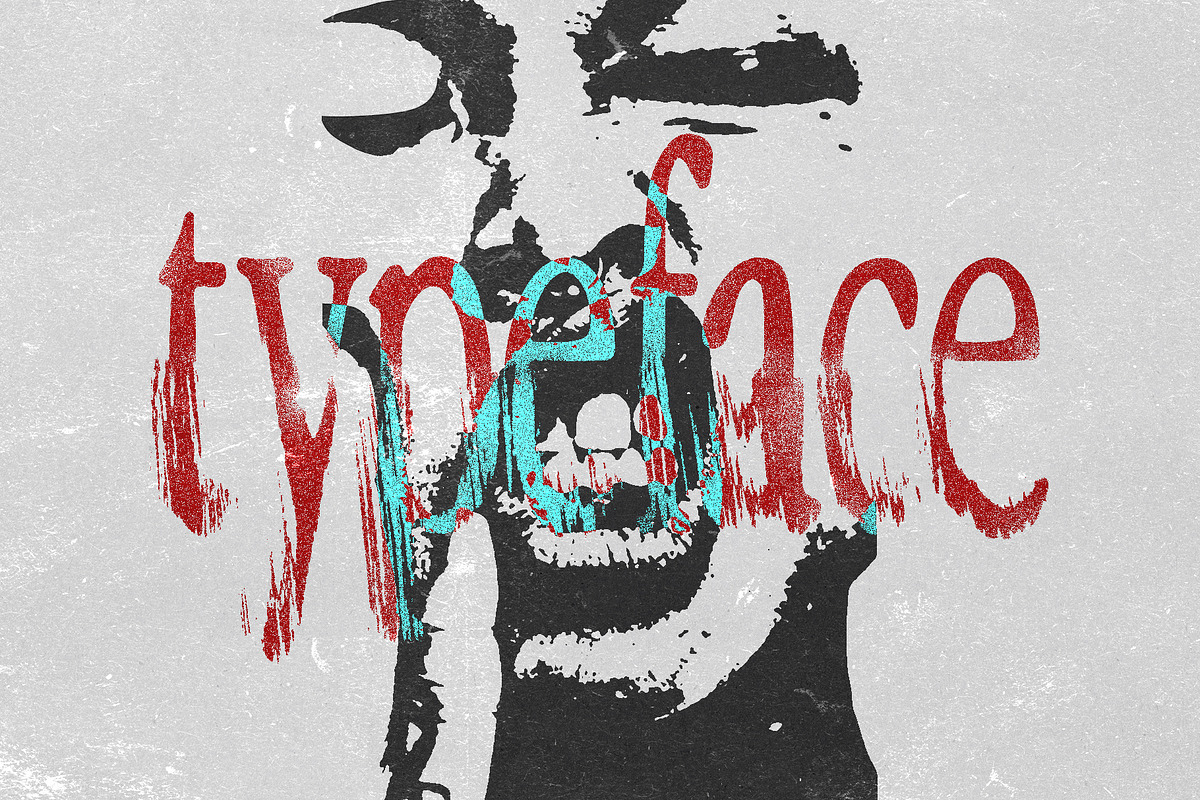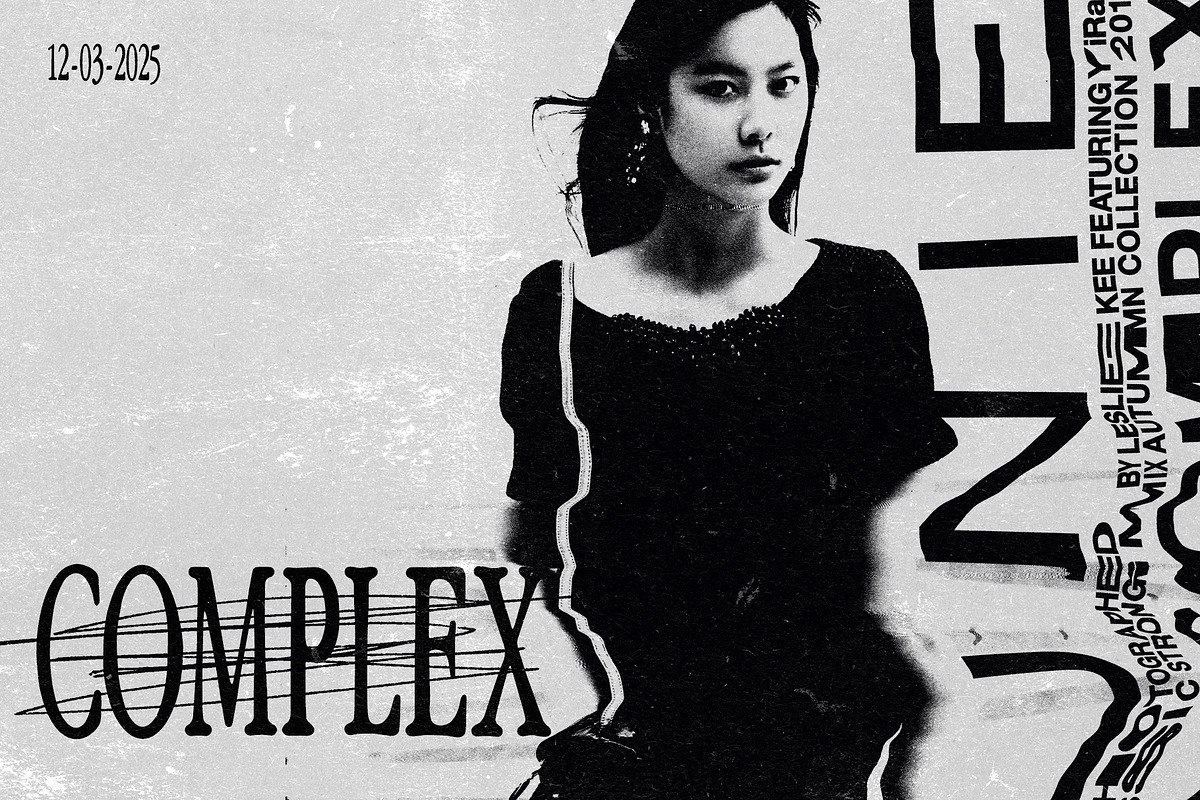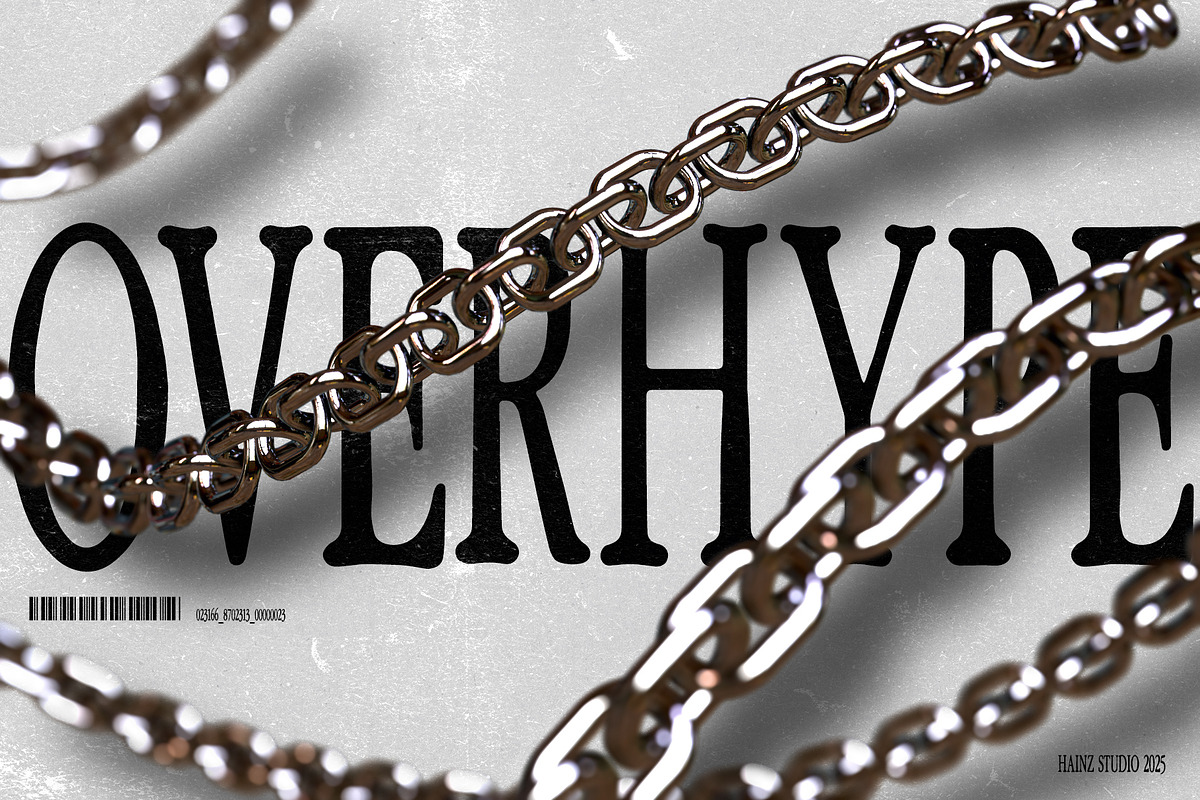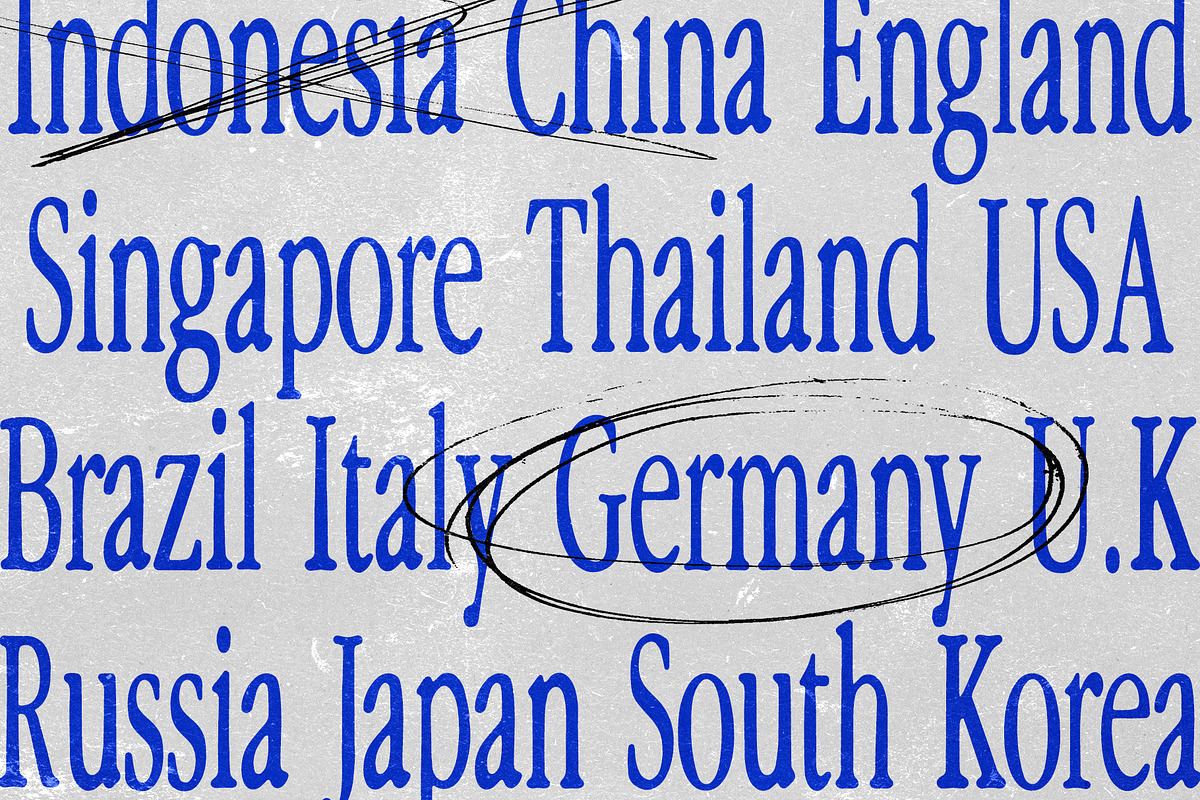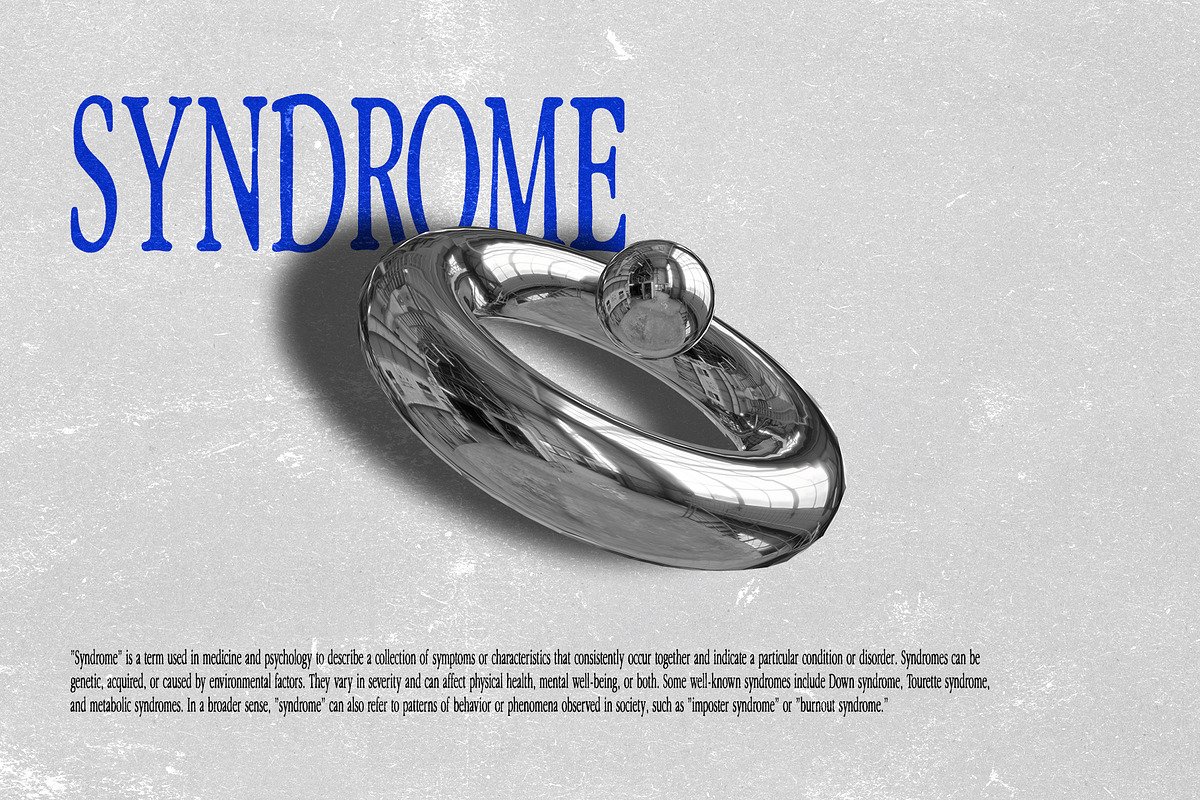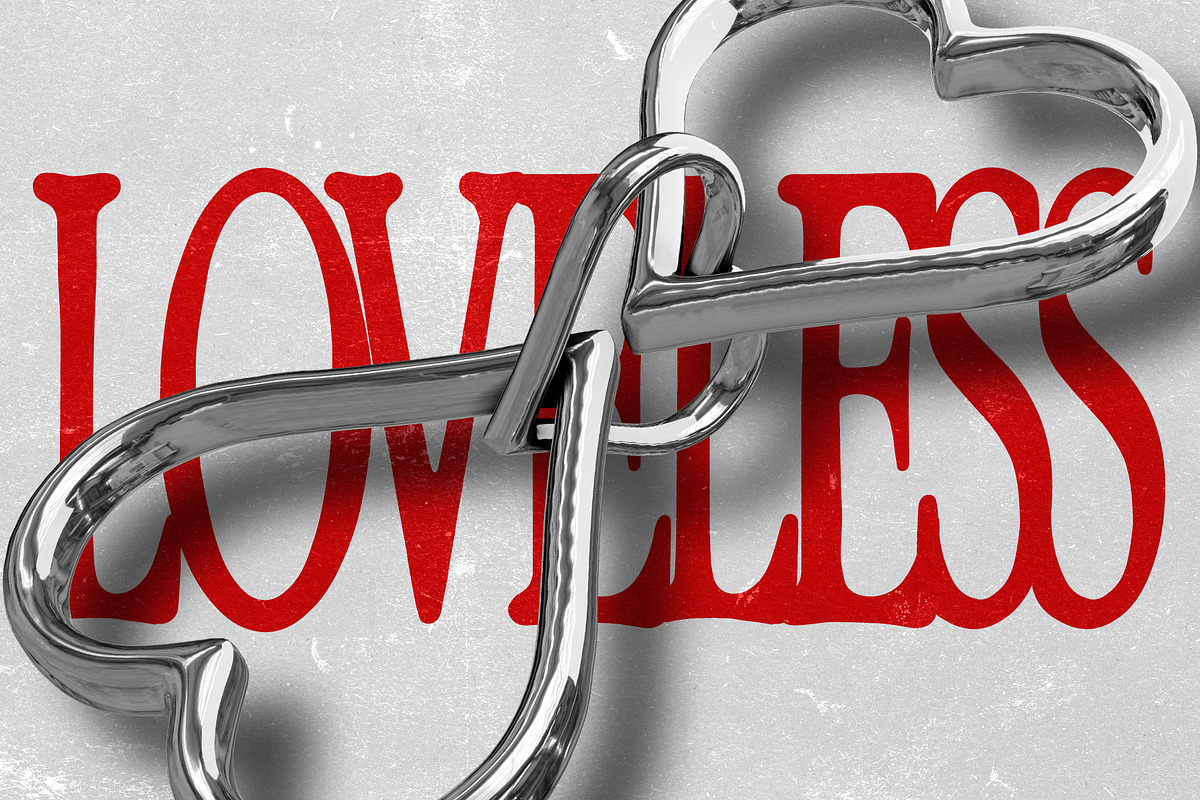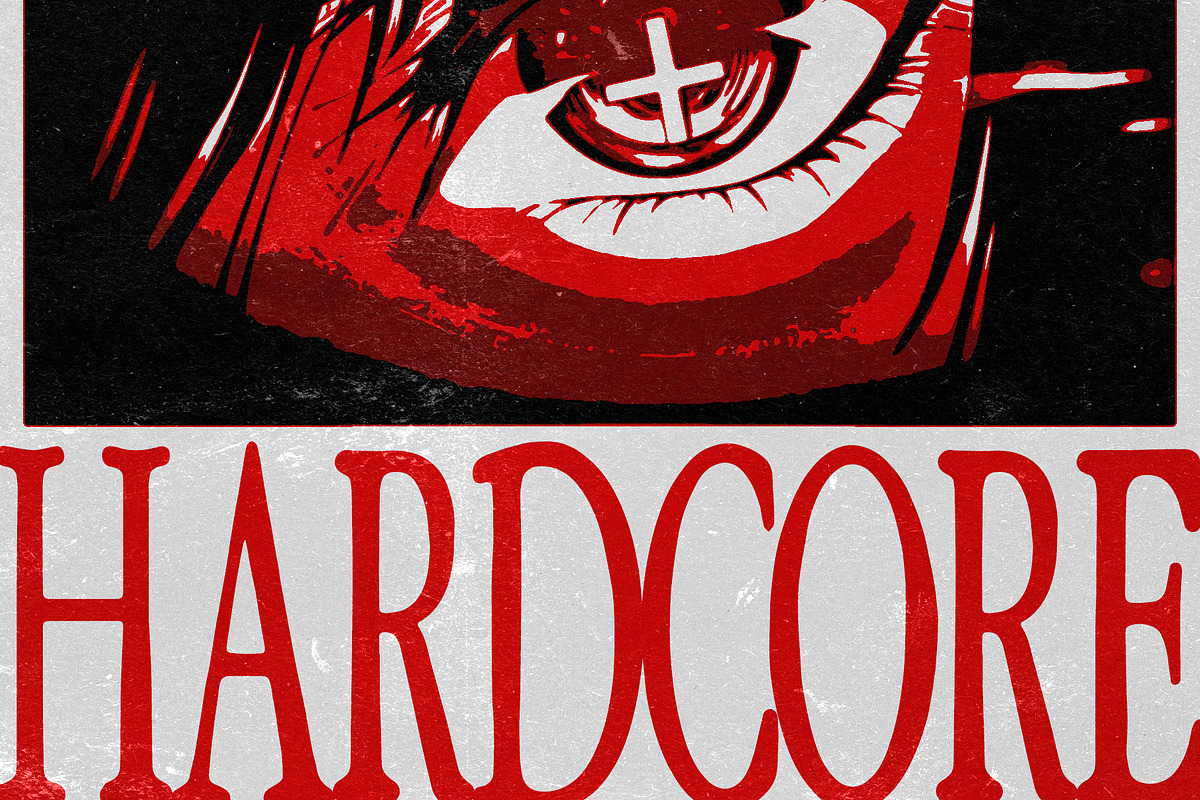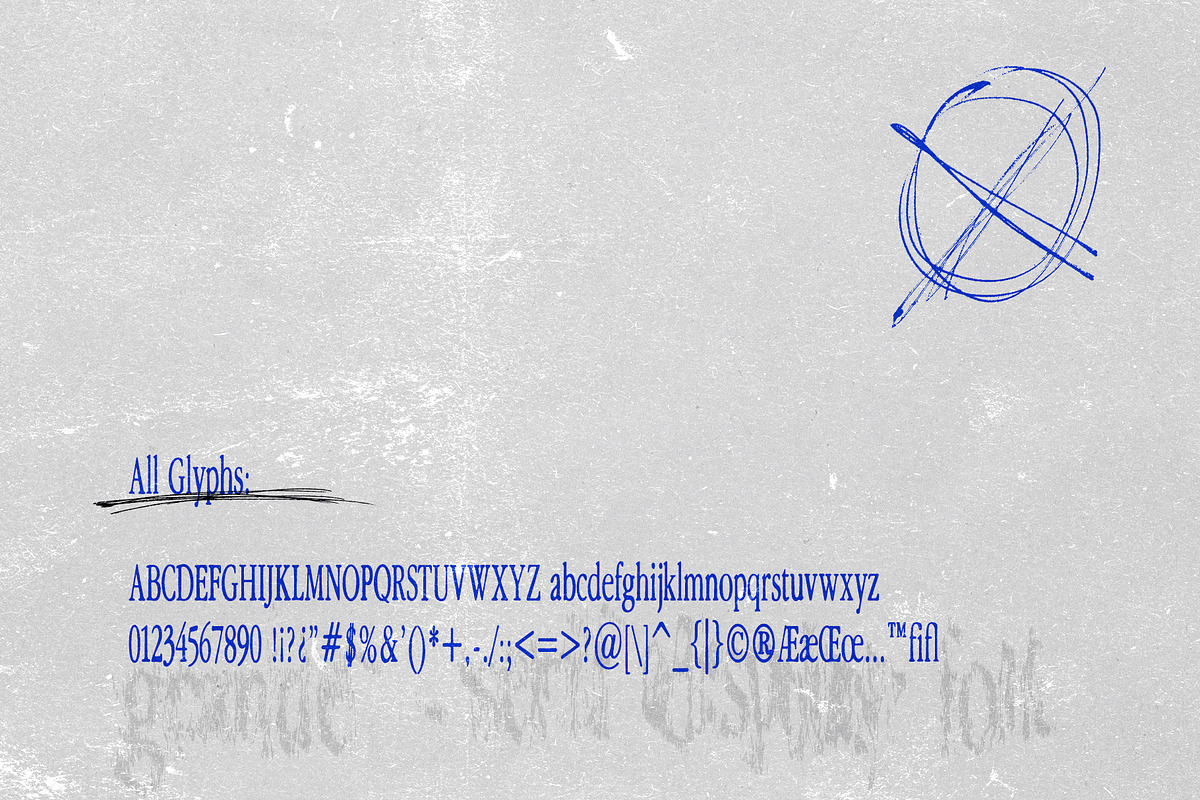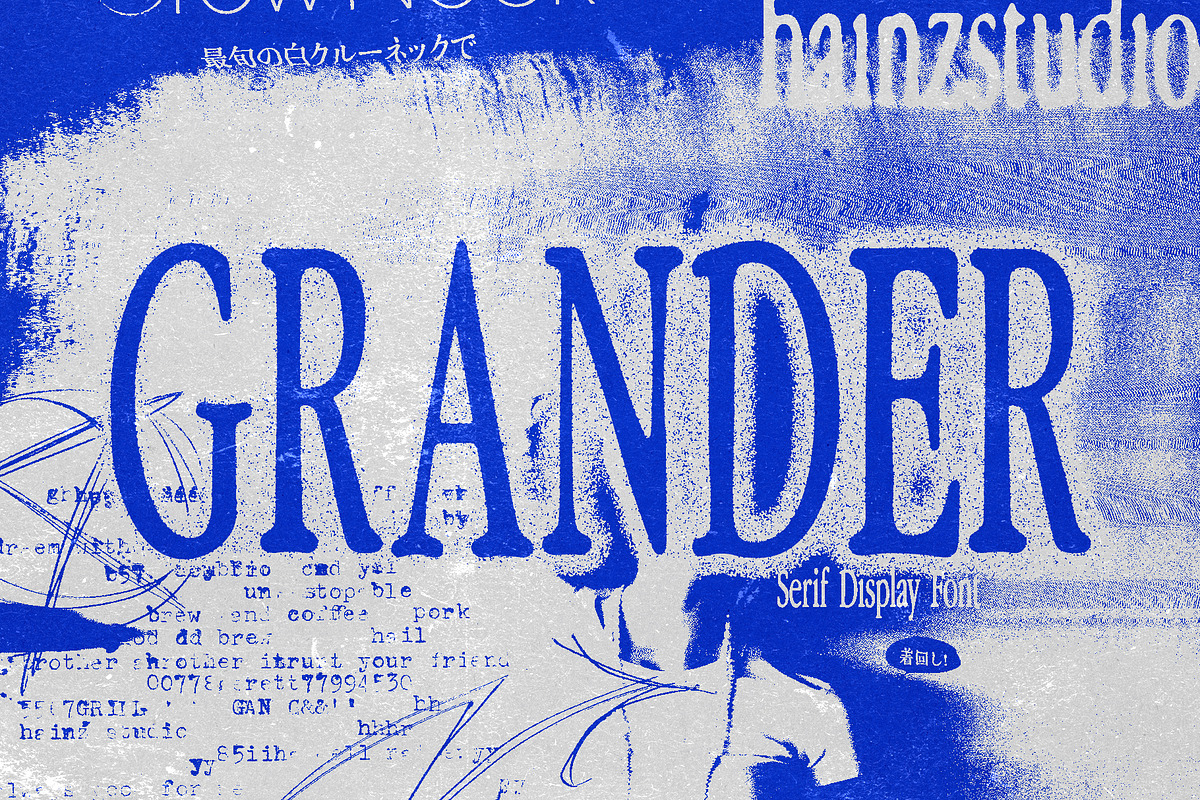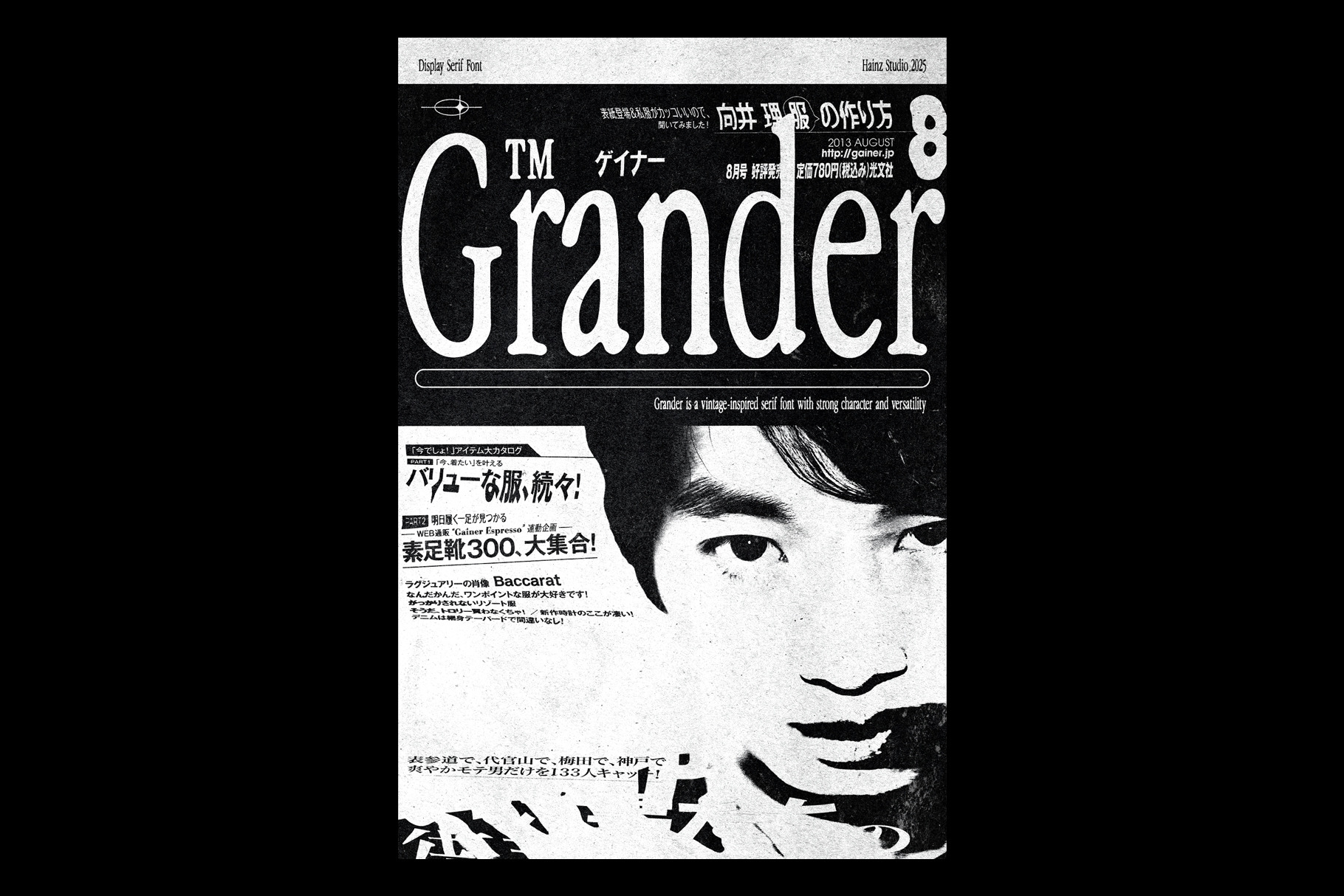
Grander – Display Serif Font
Grander is a classic vintage serif font with an elegant and timeless design. It supports uppercase, lowercase, and numerals, making it perfect for branding, editorial, and creative projects.
🌐 Key Features:
- Elegant vintage serif with a unique personality
- Well-crafted letterforms for readability and style
- Supports uppercase, lowercase, numbers, and symbols
- Works beautifully in both print and web projects
🌐 Ideal for:
- Classic branding & logos
- Retro-inspired posters & graphics
- Editorial design & book covers
- Social media & creative content